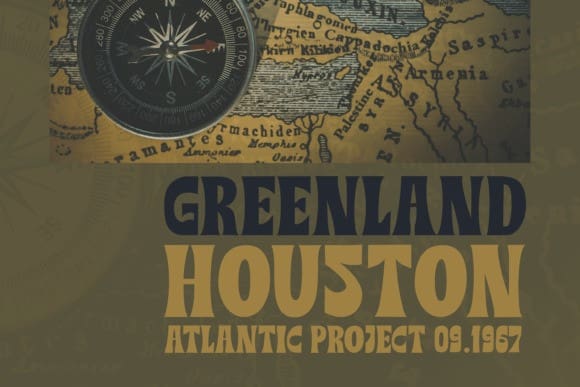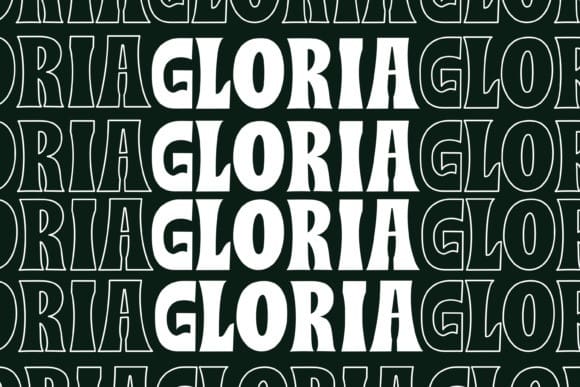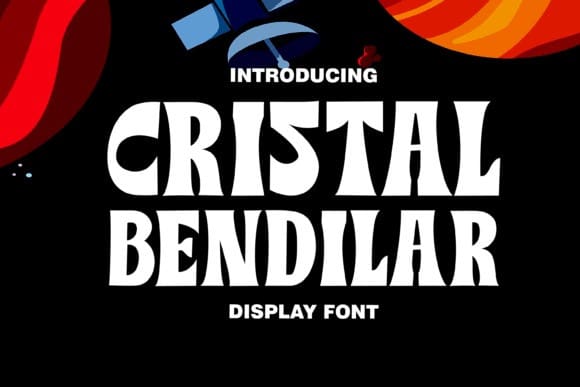
Cristal Bendilar Font
Cristal Bendilar Font is a display typeface with Variable Weight and Width. It is an elegant and modern variable font. It’s basically a sans with a touch of serif to each letter. A simple yet very legible font with various widths and weights that you can explore, combine, and create.
You can shift the weight and width in the sweetest places in Cristal Bendilar.